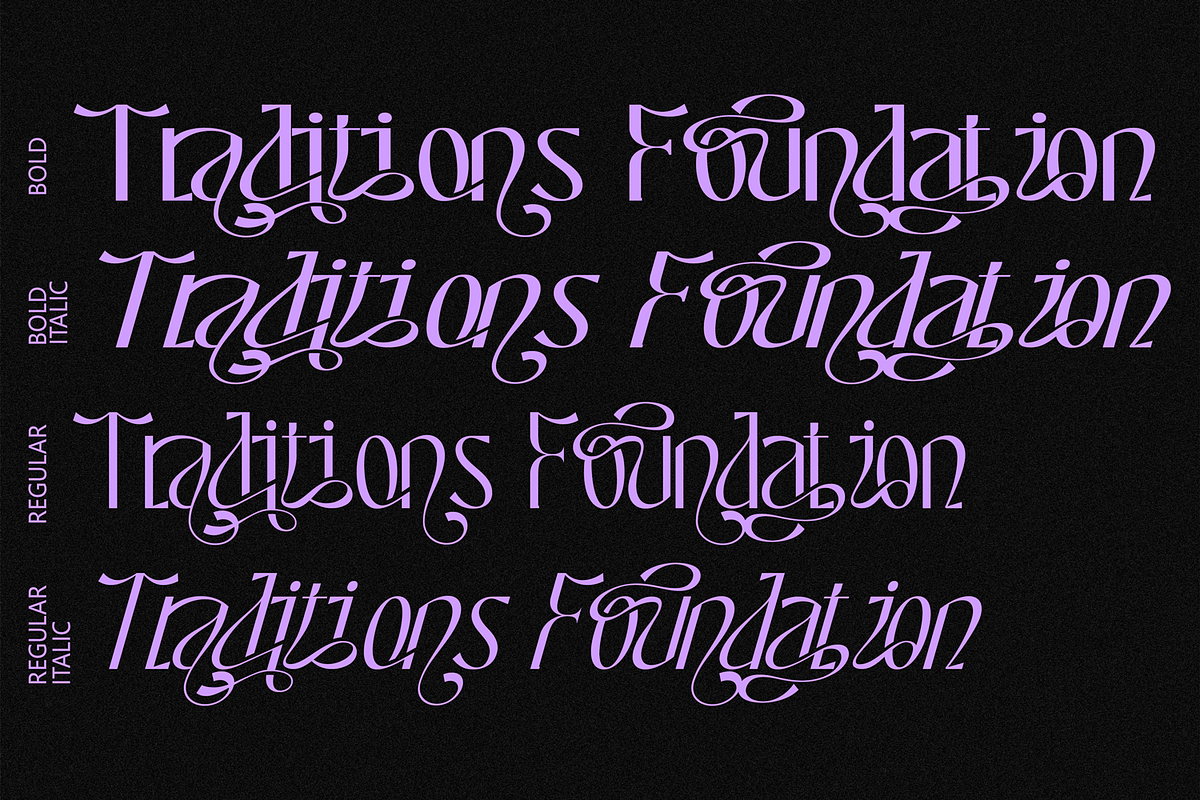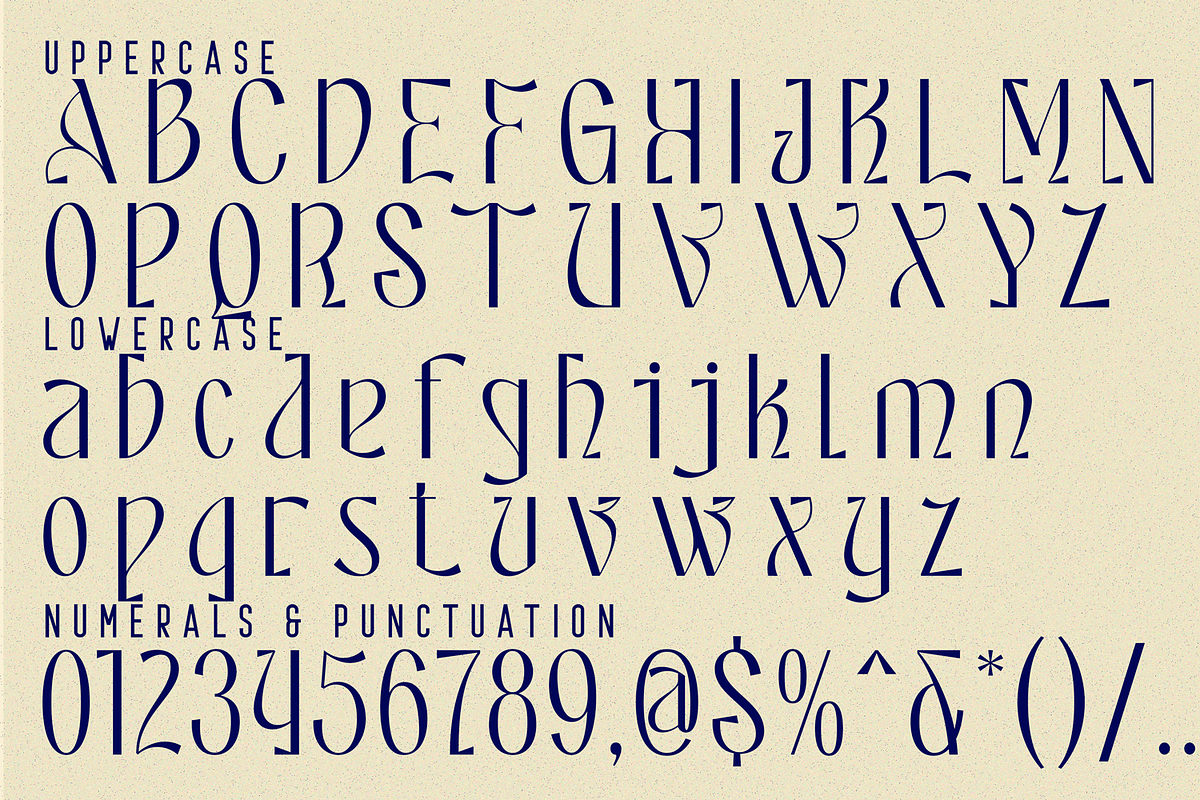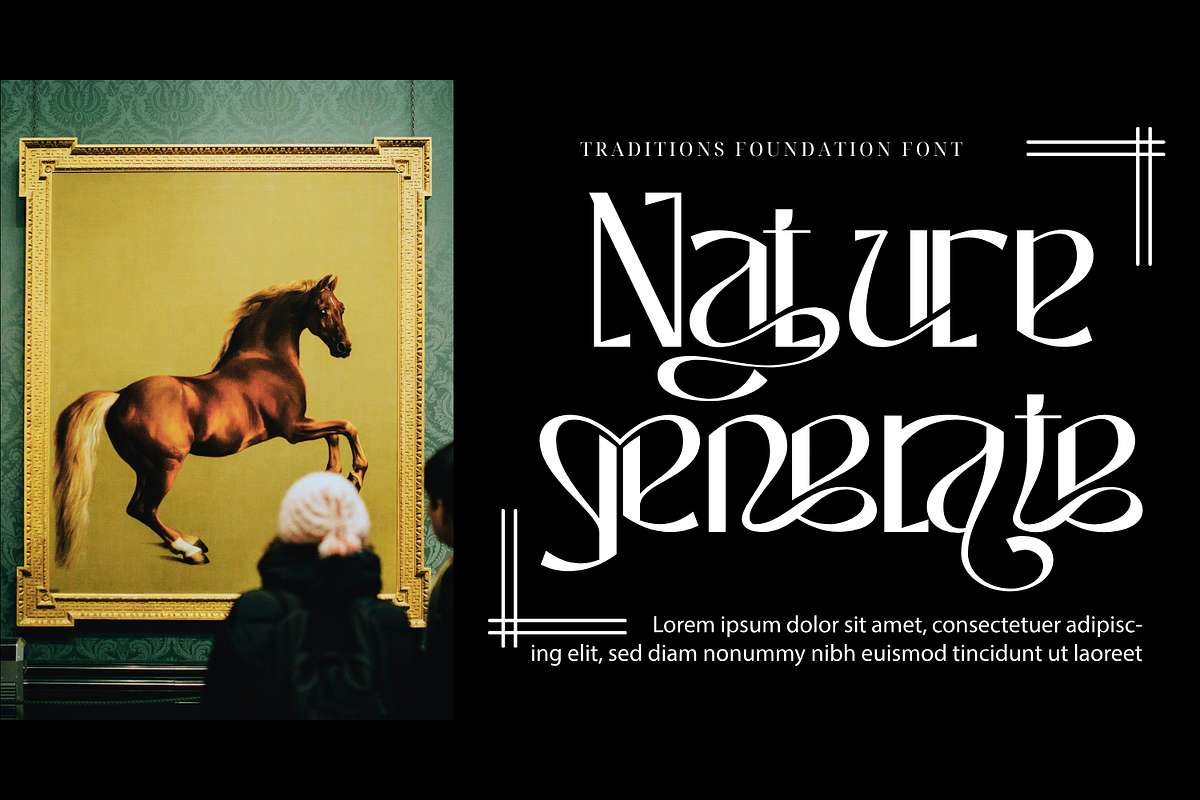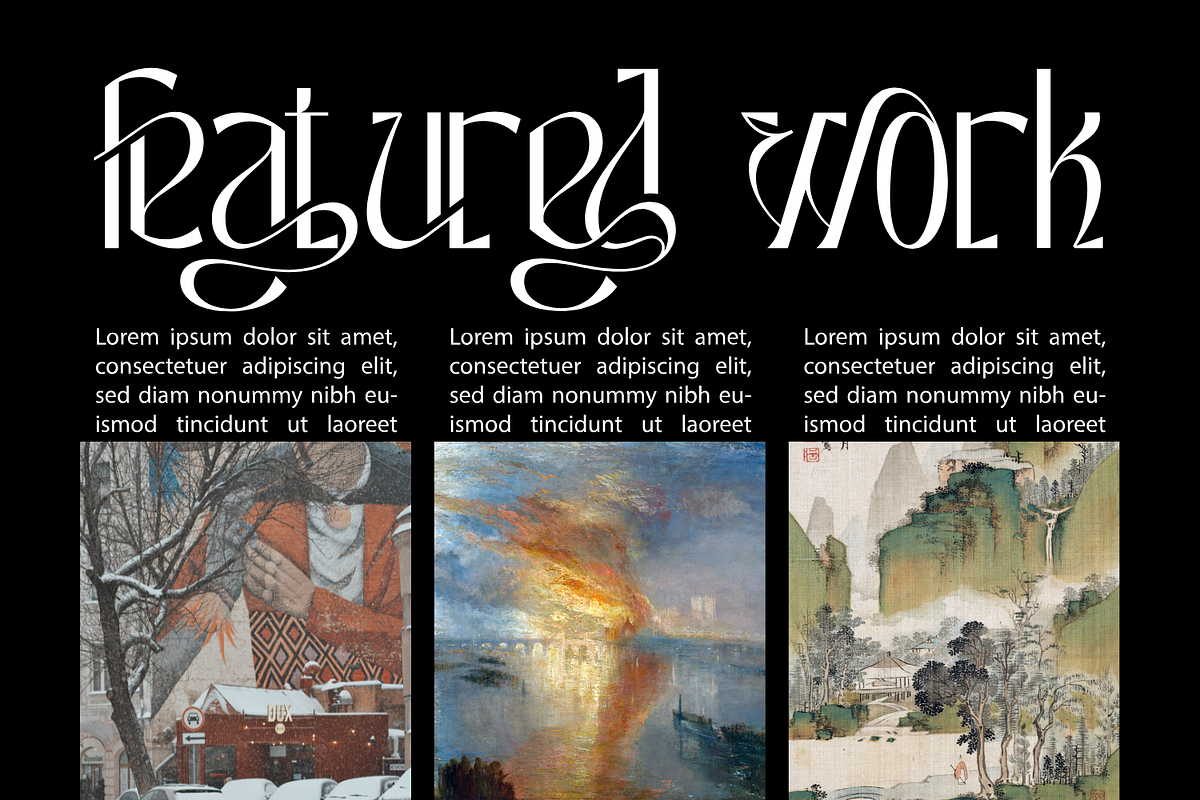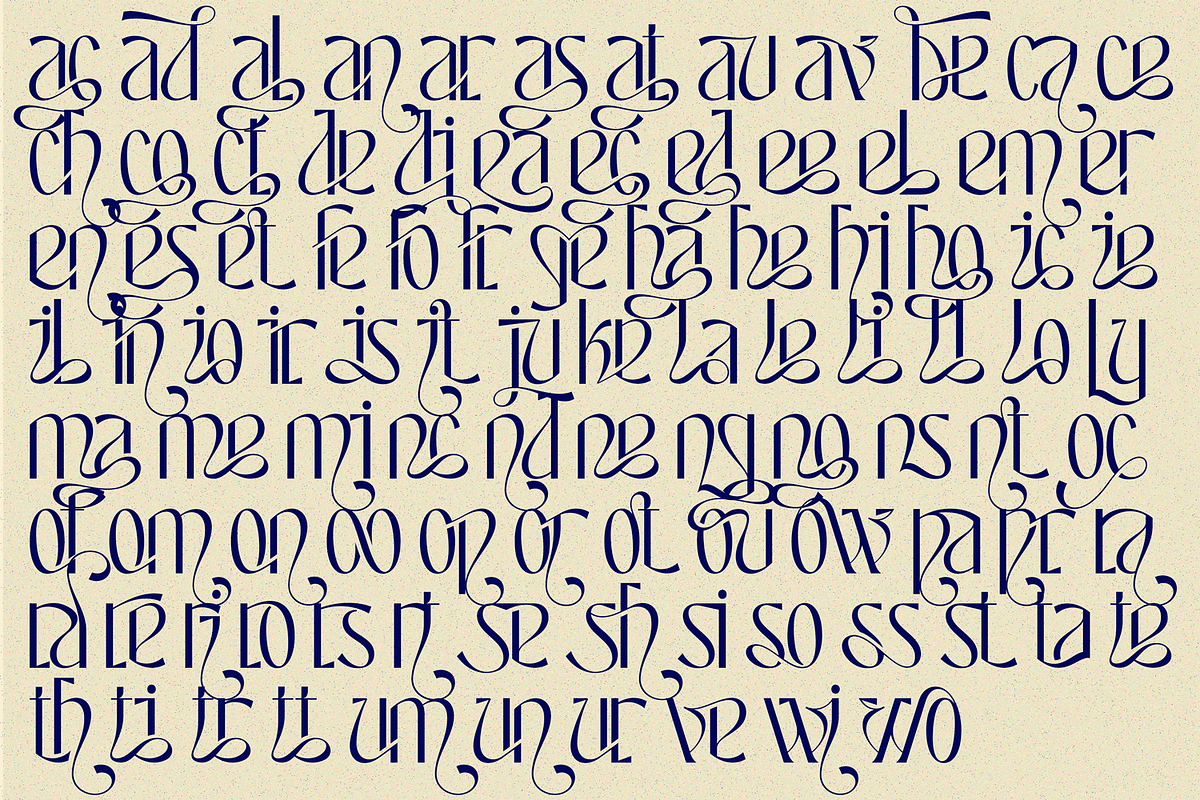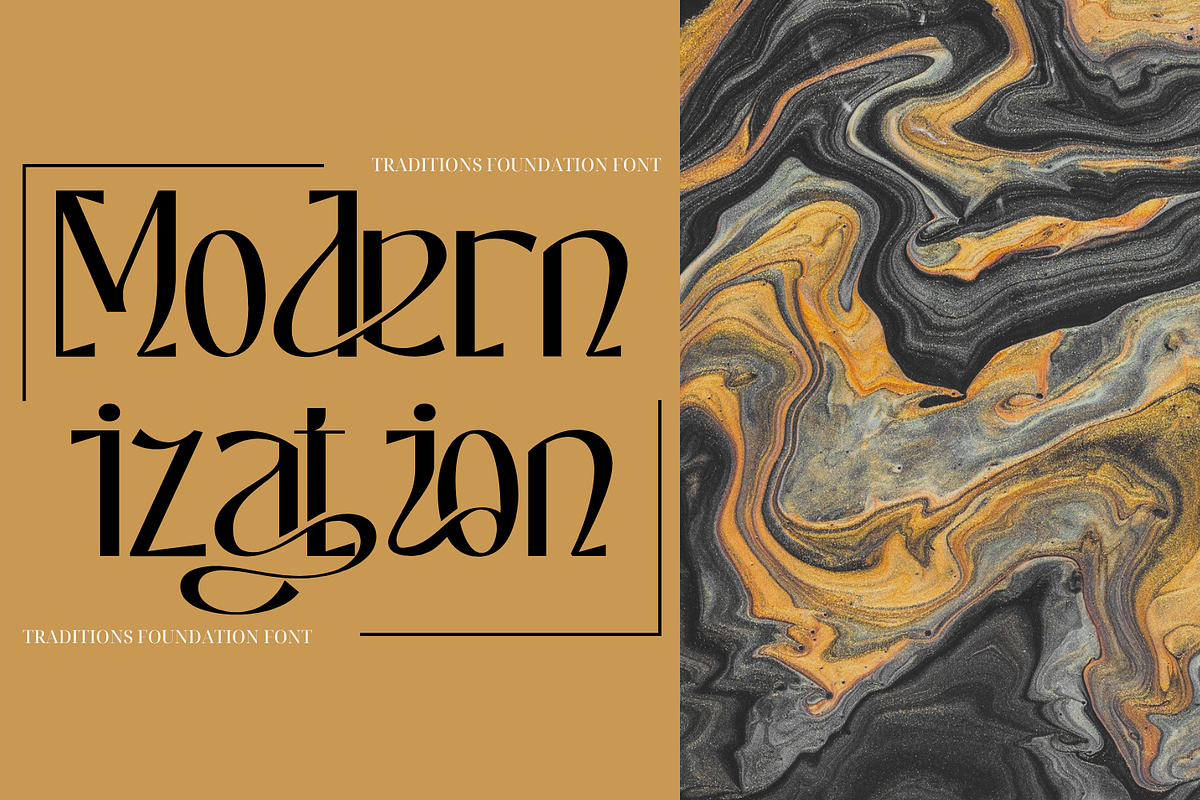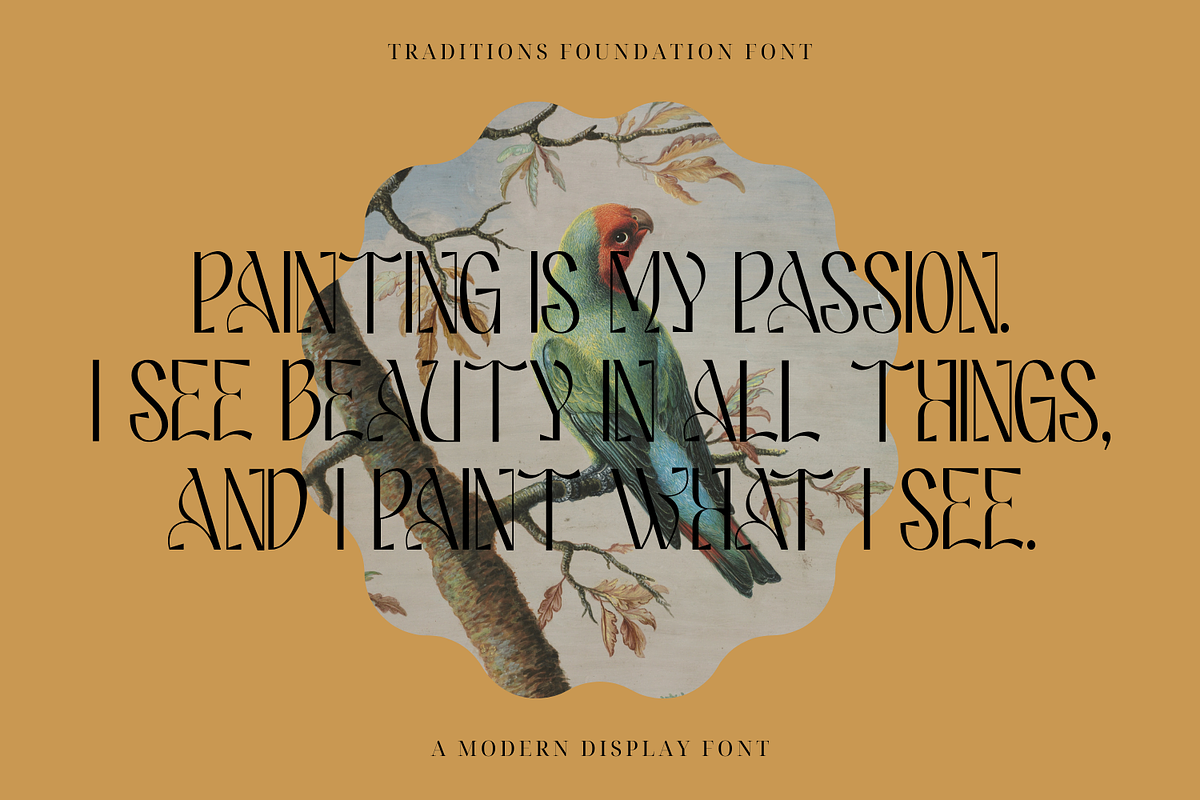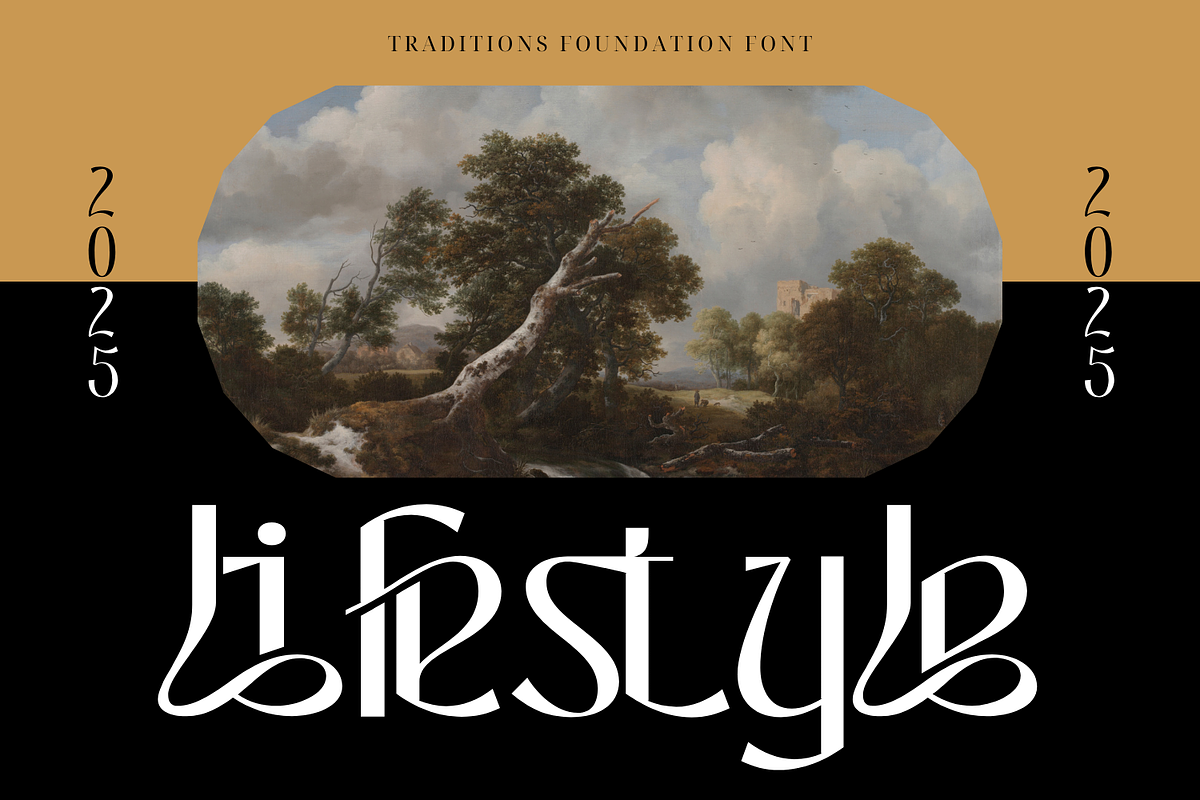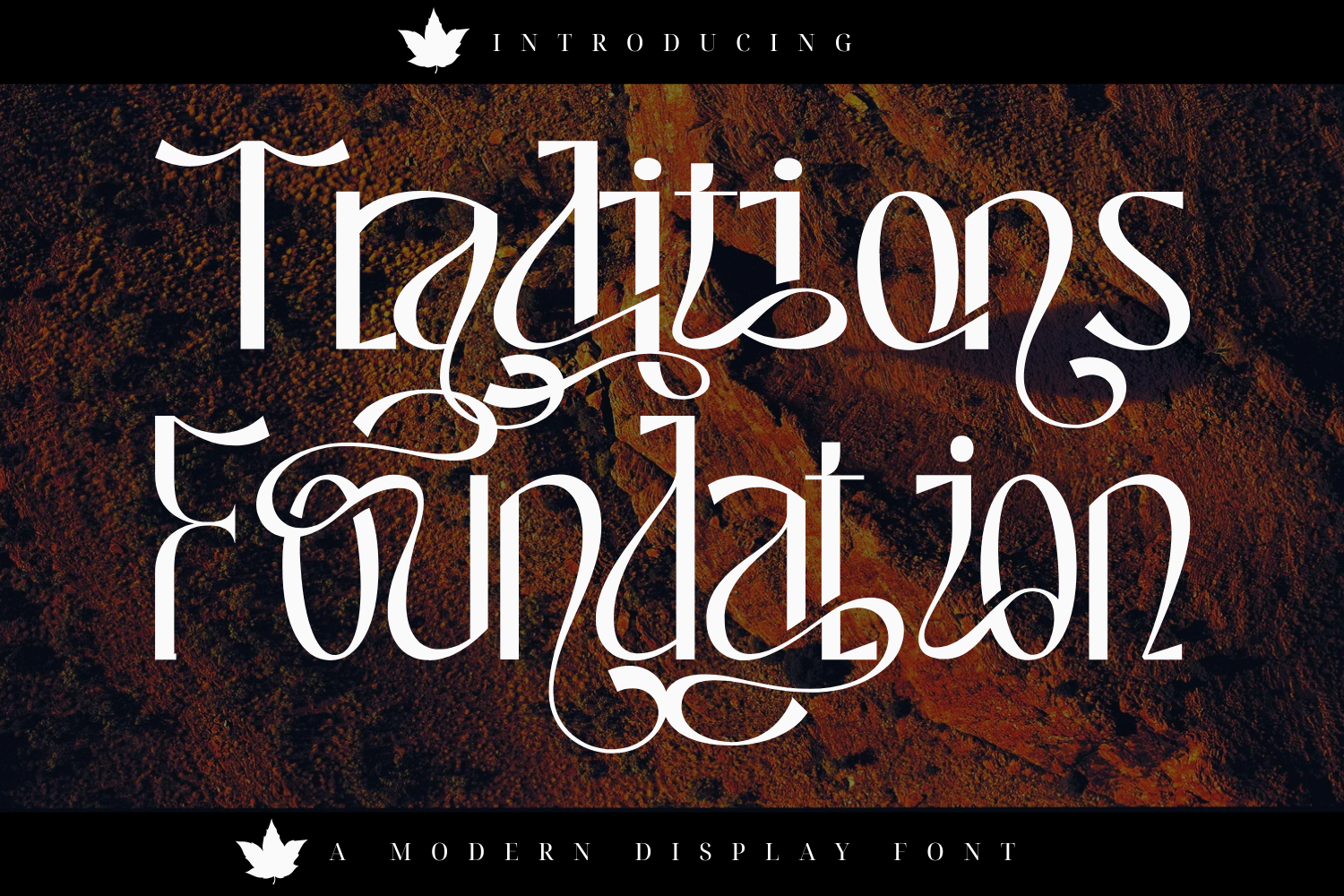
Traditions Foundation-Ligature Font
Traditions Foundation | Ligature Font – A Unique & Striking Display Sans Serif. It's a bold and modern sans serif typeface designed to make a statement. With its clean lines and distinctive character shapes, this font is perfect for eye-catching headlines, branding, posters, packaging, and editorial design.
🔹 Uppercase & Lowercase Letters – Crafted for versatility and impact.
🔹 100+ Special Ligatures & Stylistic Alternates – Adding creativity and uniqueness to your typography.
🔹 Numerals & Punctuation – A complete set for all design needs.
🔹 Accented Characters – Supporting multiple languages with ease.
With its unique blend of modern aesthetics and display-worthy presence, Traditions Foundation is the ideal choice for designers looking to elevate their work with a fresh and dynamic typeface.
About 100 ligatures combined with Stylistic Alternates Font:
ac ad al an ar as at au av be ca ce ch co ct de di ea ec ed ee el em en ep er es et fe fo fr ge ha he hi ho ie ic il in io ir is it ju ke la le li ll lo ly ma me mi nc nd ne ng no nt ns oc of om on oo op or ot ou ow pa pr ra rd re ri ro rs rt se sh si so ss st ta te th ti to tr tt um un ur ve wi wo